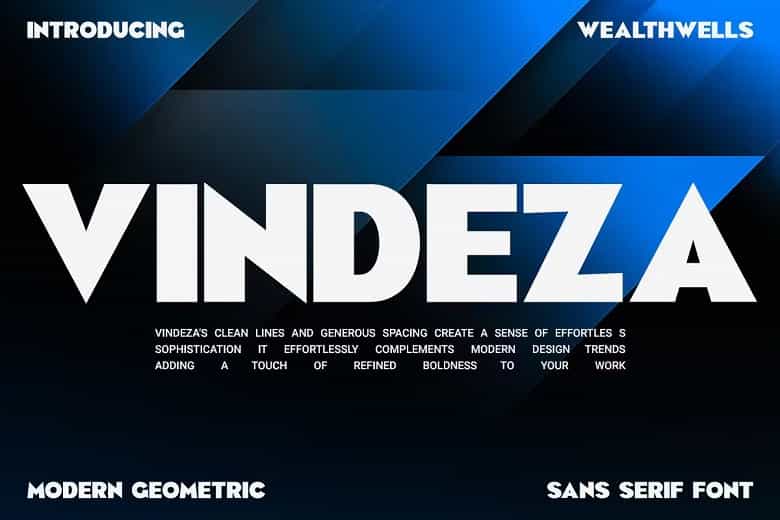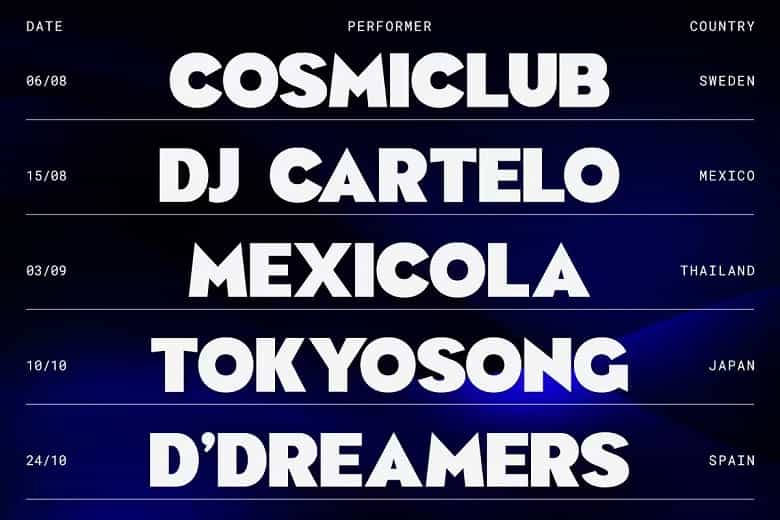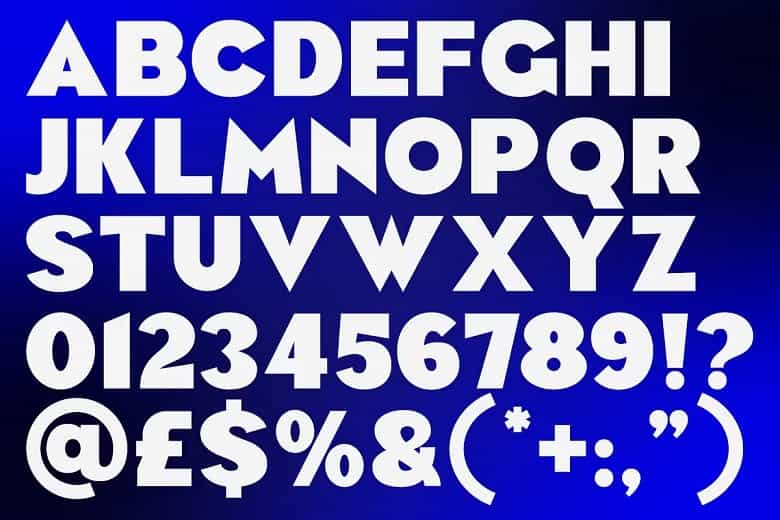
Vindeza is a contemporary font with geometric sans-serif design. It is perfect design for manufacturing, quotation, logo, corporate brand, marketing and advertising, and more.